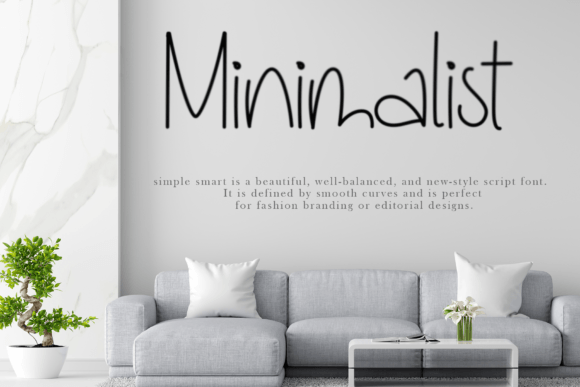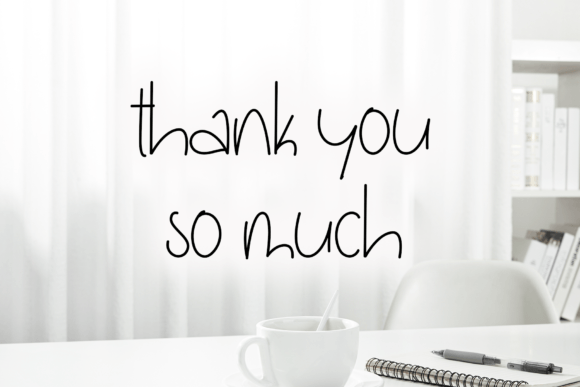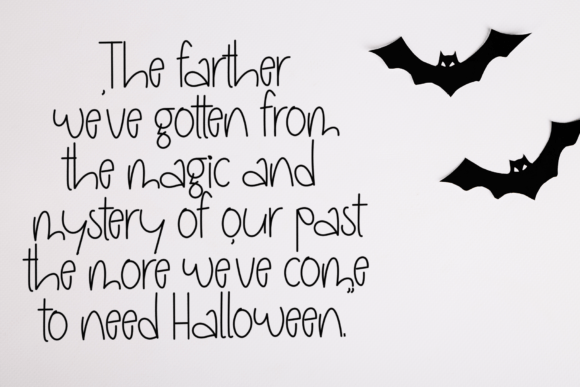
Simple Smart Font: Quirky Handwriting for Playful Designs
“Simple Smart” is a fun and unique handwritten font that radiates a quirky and friendly vibe. It’s perfect for various projects seeking to add a playful and approachable touch to their designs.
Key Features of Simple Smart Font
- Quirky Style: Simple Smart brings a playful and unique feel to designs.
- Friendly Appearance: Creates an approachable atmosphere in typography.
- Versatile Use: Suitable for many projects, from branding to digital content.
Simple Smart’s quirky style is ideal for creating memorable logo designs and branding materials that convey creativity and friendliness.
Digital Content and Social Media
Use Simple Smart to design engaging social media graphics and digital content that stand out with their playful appeal.
Greeting Cards and Invitations
The font’s friendly nature makes it perfect for creating charming greeting cards and invitations.
Why Choose Simple Smart Font?
Simple Smart offers more than just quirky letters. Here’s why it stands out:
- Injects a sense of fun and uniqueness into projects
- Conveys a sense of creativity and friendliness effectively
- Adds a touch of approachability to designs
By using Simple Smart, you open up new design possibilities. Its playful style works well in many contexts, from poster designs to website headers. The font’s ability to convey friendliness can inspire creative ideas and help you approach projects from a fresh, engaging perspective.
If you’re looking for a font that’s both fun and versatile, Simple Smart is an excellent choice. It’s perfect for adding a touch of quirkiness to your work, especially for projects that need a playful, approachable feel.
Explore how Simple Smart can transform your designs. From branding materials to personal creations, this font brings a quirky and friendly quality to your work.